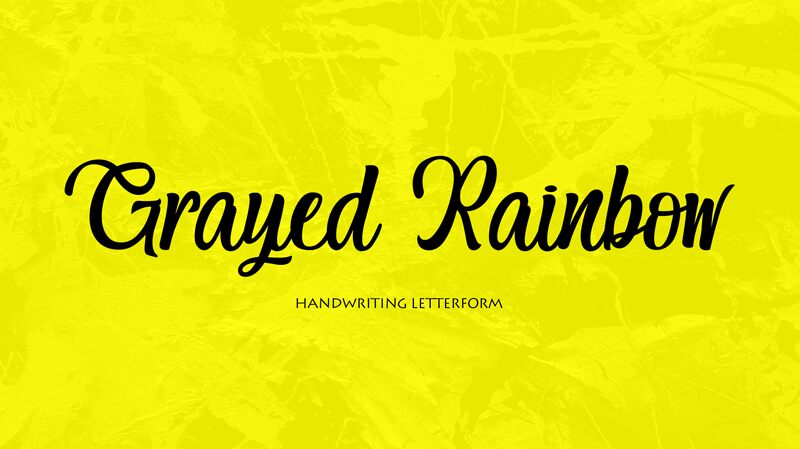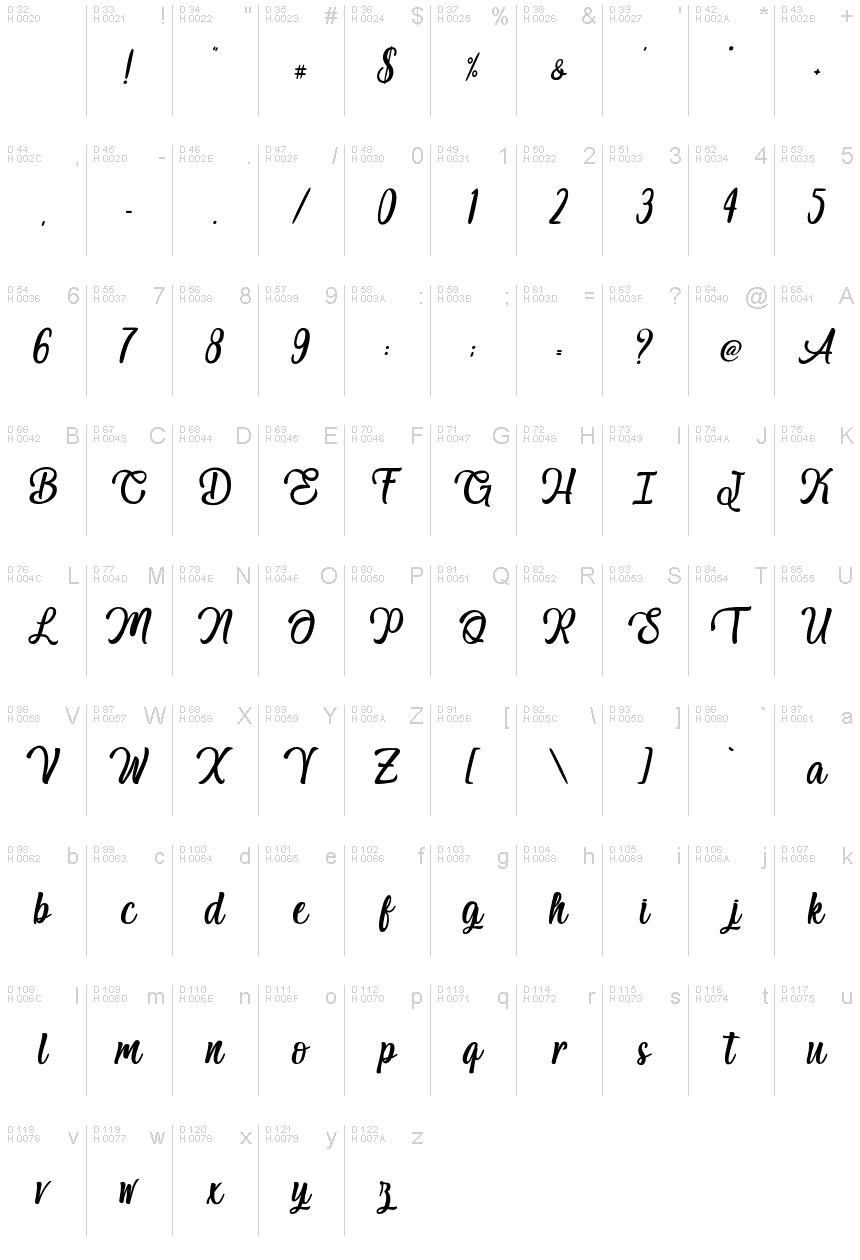
Grayed Rainbow Regular
Grayed Rainbow is an original and fun script handwriting font designed by Adriana Mazurek.
The name came from the fact that we recently adopted a dog whose body is covered with a certain gray dripping, which reminds me of a painting by one of my favourite abstract expressionist artist.